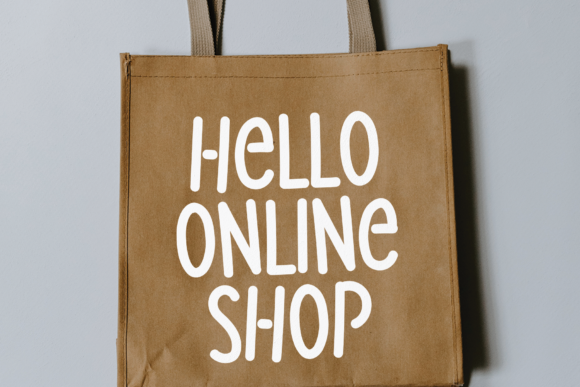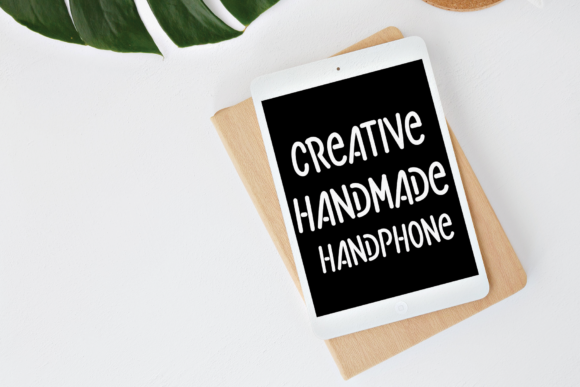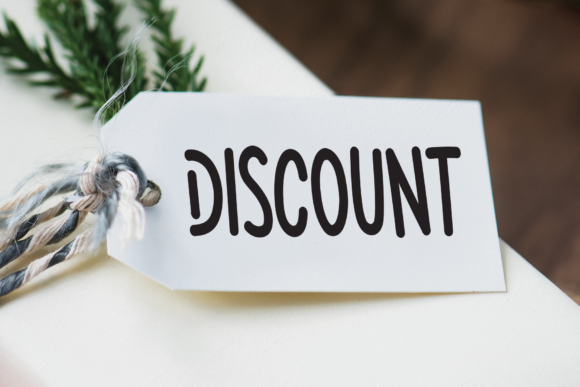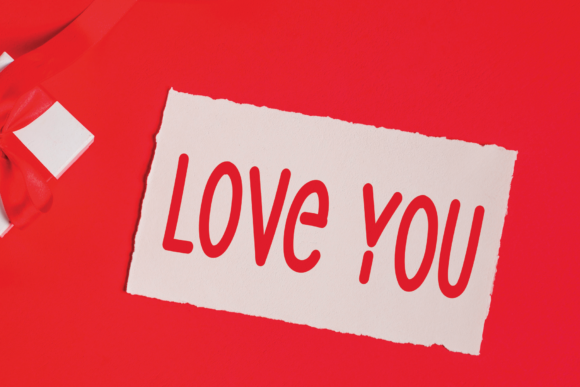
The Ultimate Guide to Best Friend Font: Adding a Touch of Whimsy to Your Designs
I’ll never forget the time I was working on a project for a children’s birthday party invitation. I had the design concept nailed, but I was struggling to find the perfect font to bring it all together. That’s when I stumbled upon Best Friend font, and it was love at first sight! 💕 This fun and trendy display font has been a game-changer for my designs, and I’m excited to share its awesomeness with you.
An Honest Review of Best Friend Font
So, what makes Best Friend font so special? Let’s dive into the good stuff! 😊
- ✨ Unique and quirky personality: Best Friend font has a one-of-a-kind charm that adds a touch of whimsy to any design.
- ✅ Easy to read: Despite its playful nature, this font is surprisingly legible, even at smaller sizes.
- 🎉 Perfect for kids and adults alike: Best Friend font’s childish vibe makes it ideal for designs targeting a younger audience, but its sophistication also appeals to adults.
Of course, no font is perfect, and Best Friend has a few minor quirks:
- 🤔 Limited use in formal designs: Best Friend font’s playful nature might not be suitable for more formal or professional projects.
- ⚠️ Some letters may require manual kerning: As with any font, you might need to adjust the kerning for certain letter combinations to achieve optimal results.
- Experiment with OpenType features, such as Stylistic Alternates, to add more flair to your text.
- Access OpenType features, such as Glyphs and Stylistic Sets, to unlock the font’s full potential.
The Story Behind Best Friend Font
Best Friend font was created with the intention of capturing the carefree spirit of childhood friendships. The designer aimed to craft a font that would evoke feelings of joy, playfulness, and togetherness. Whether you’re designing for kids or adults, Best Friend font is sure to bring a smile to your audience’s faces.
| Can I use Best Friend font for branding and logos? | While Best Friend font can be used for branding and logos, its playful nature might be better suited for specific design applications, such as packaging or advertising. |